Recommended fonts for websites are no longer just a concern for mobile banking or formal industries. Nowadays, almost every business, from fashion brands to cafés and personal portfolios, relies on a well-designed website to connect with users.
Typography plays an important role in first impressions, readability, and overall user experience. Research from the Nielsen Norman Group shows that users often leave a webpage within 10–20 seconds if it is not visually clear or easy to read.
This highlights how important typography is for a website. To make things easier, here are 22 of the best font choices to guide your decision.
Key Takeaways:
If you’re still questioning what font is recommended for websites, dive into our curated picks to enhance readability, style, and overall user experience.
This refined modern serif font combines sharp lines with elegant details to create a luxurious, exclusive feel. Highly recommended for websites of boutique brands and the F&B industry.
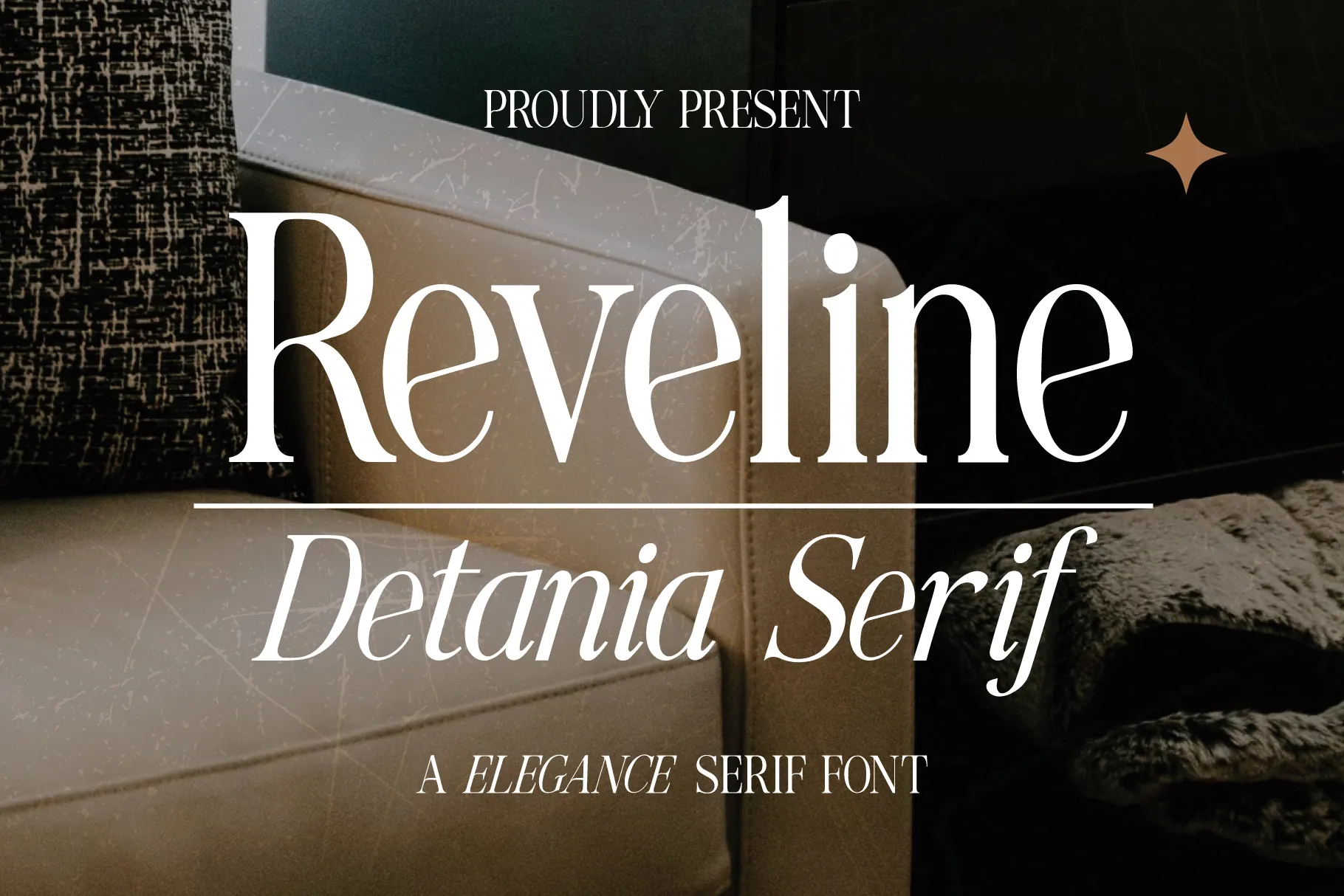
A beautifully crafted serif font that merges traditional elegance with contemporary style, creating a polished and sophisticated feel. Perfect for magazines and studio projects.
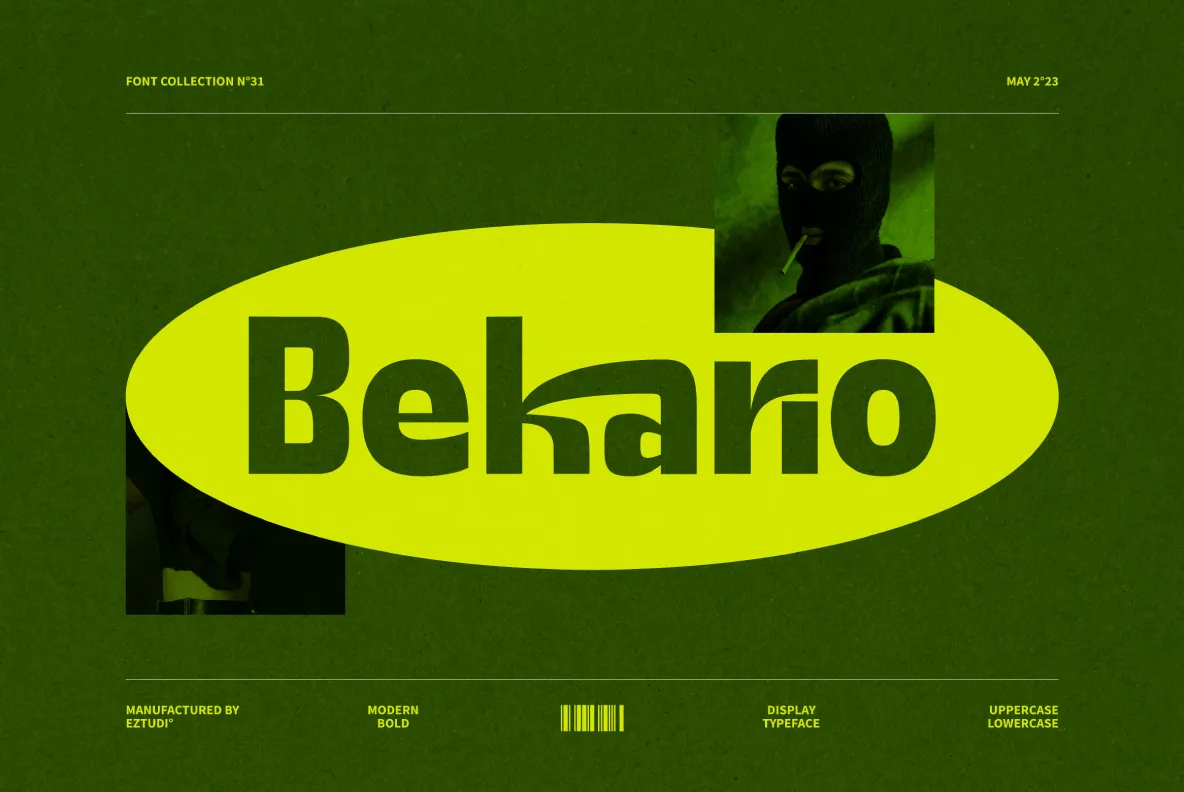
Ez-Bekario Sans Modern Display is a sleek, contemporary font that adds a stylish touch. Its clean lines create an elegant look, perfect for fashion brands and café mobile designs.
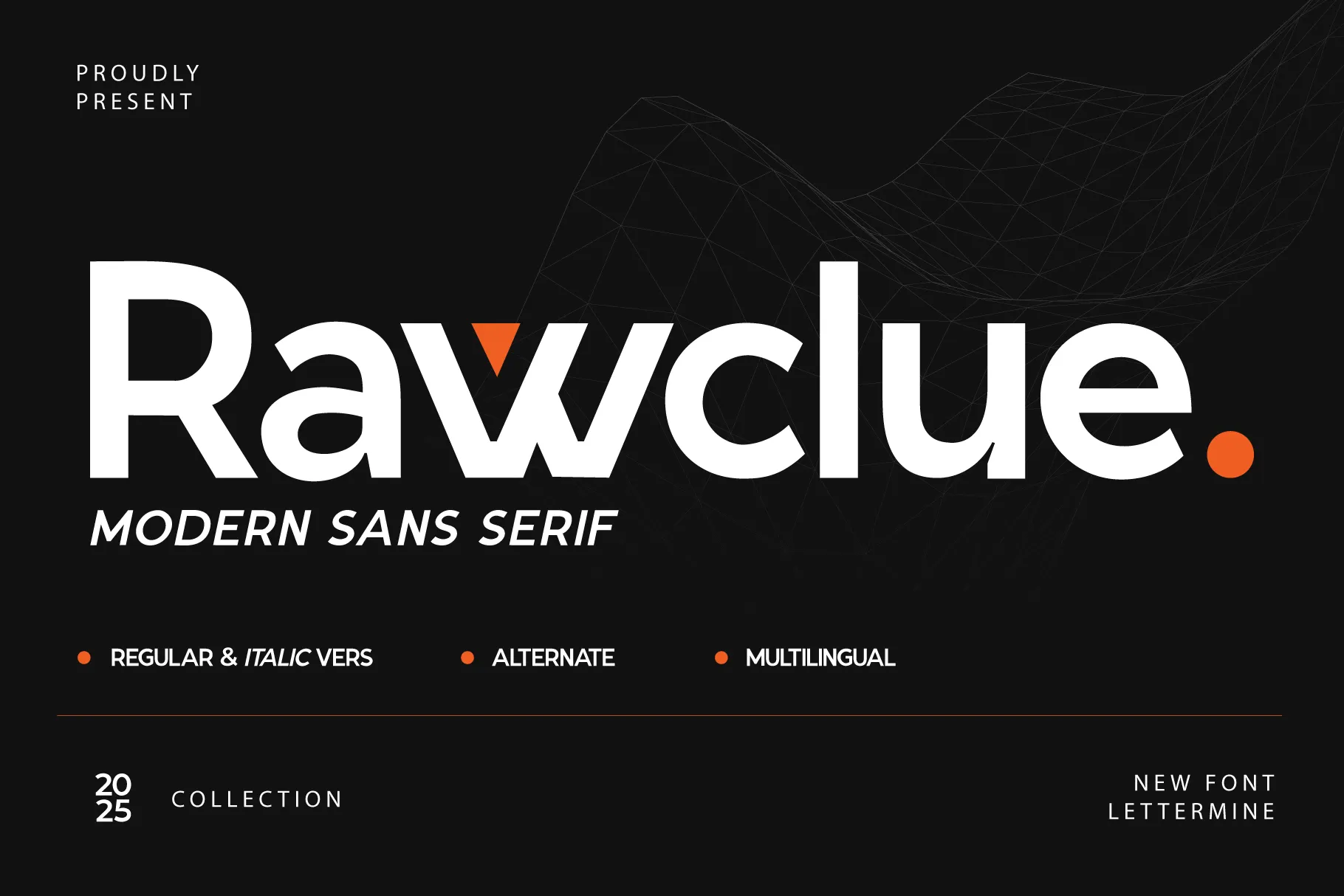
Rawclue combines contemporary style with clean, balanced letterforms to create a clear and impactful look. As one of the recommended fonts for websites, it’s perfect for any professional website seeking a modern touch.
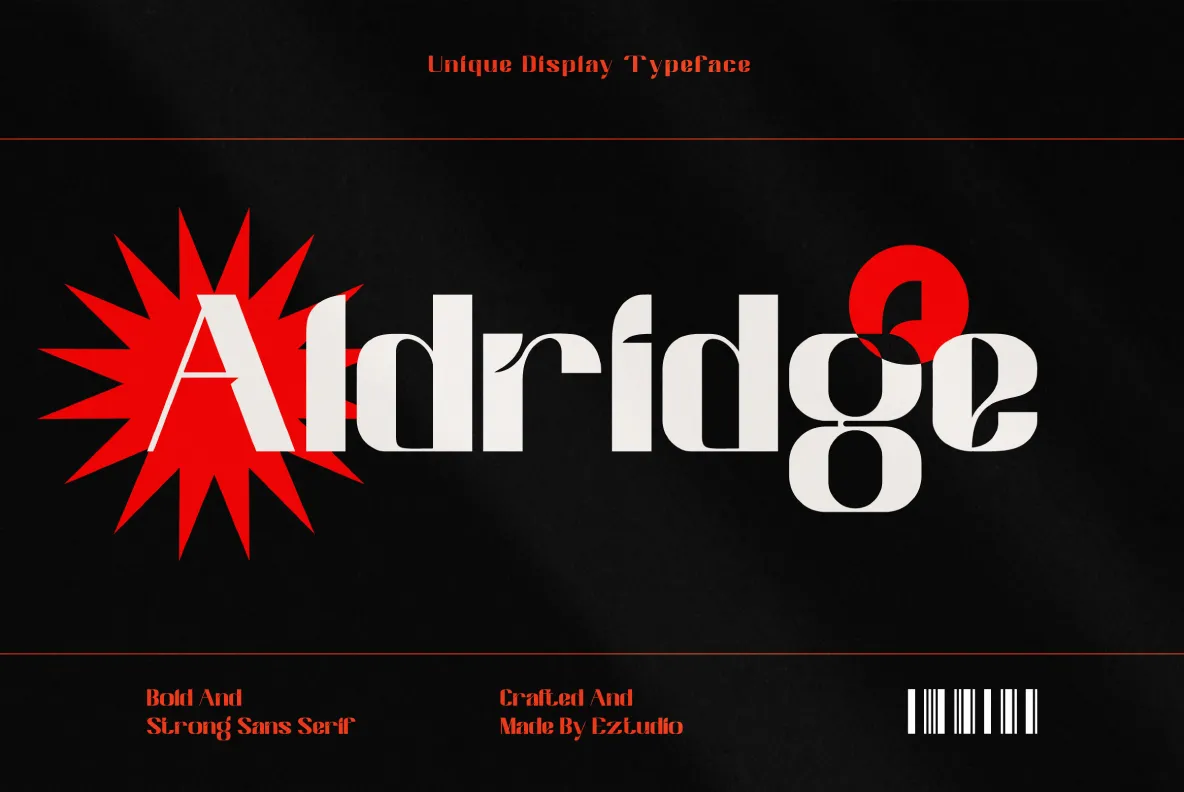
With sportswear brands increasingly using mobile apps for convenience, Aldridge offers a bold, modern display that conveys a strong, energetic vibe.
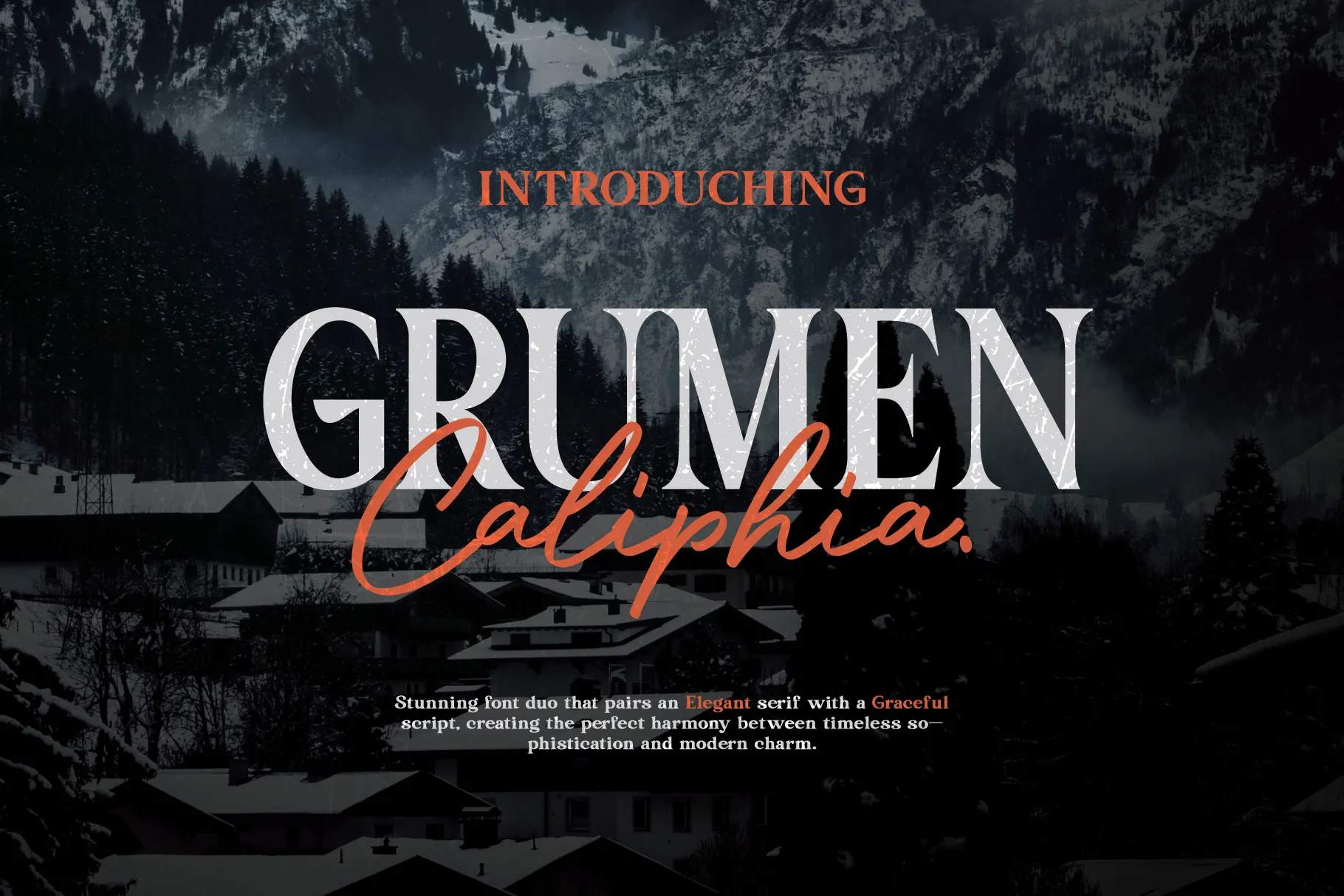
Perfect for apparel online catalogs and the lifestyle industry, Grumen Caliphia pairs a refined serif with an elegant script to create a harmonious and classic elegance look.
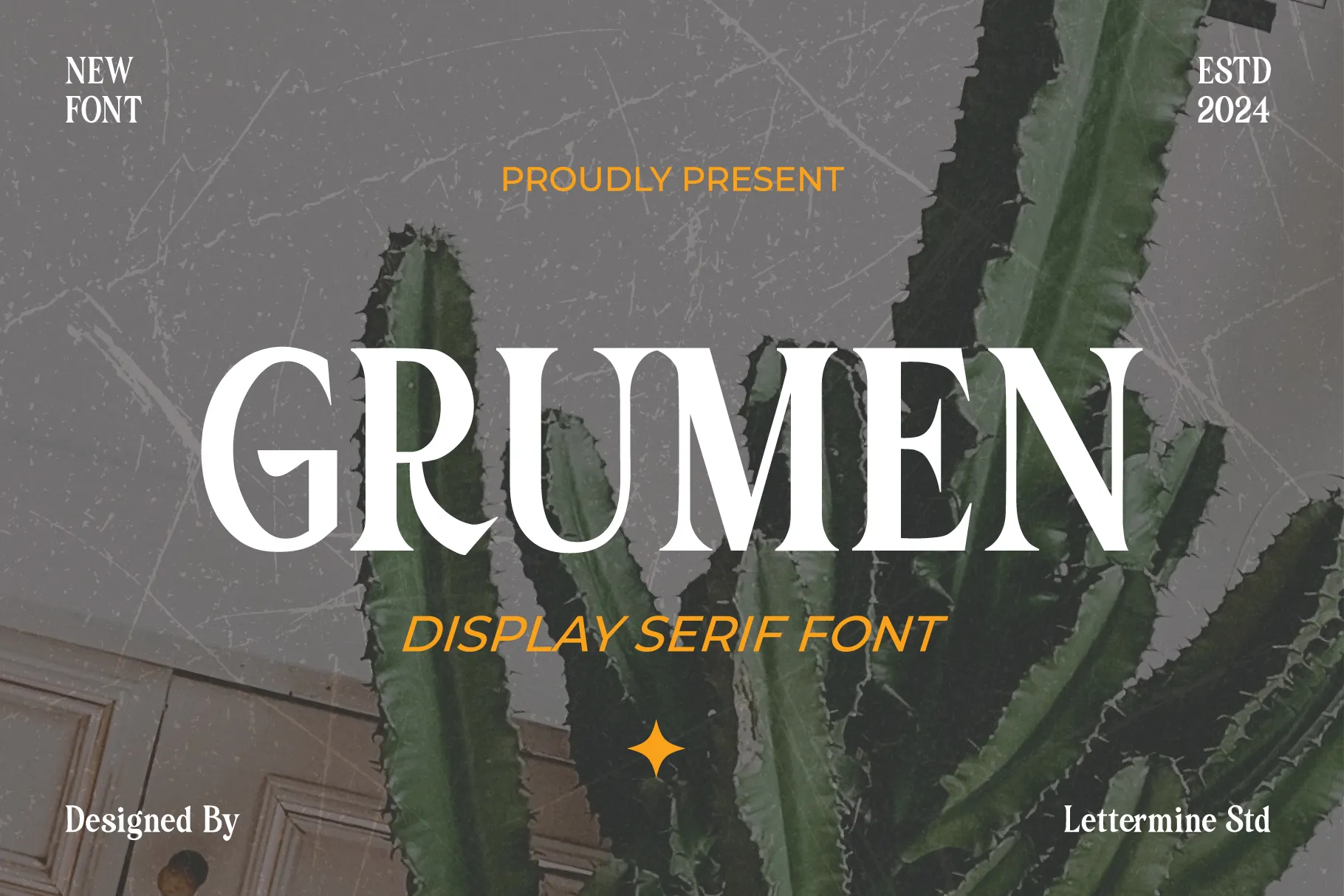
Gurmen delivers a refined, timeless look that works beautifully across apparel, interior, and both mobile and web design projects, especially when paired with the recommended font size for mobile websites.
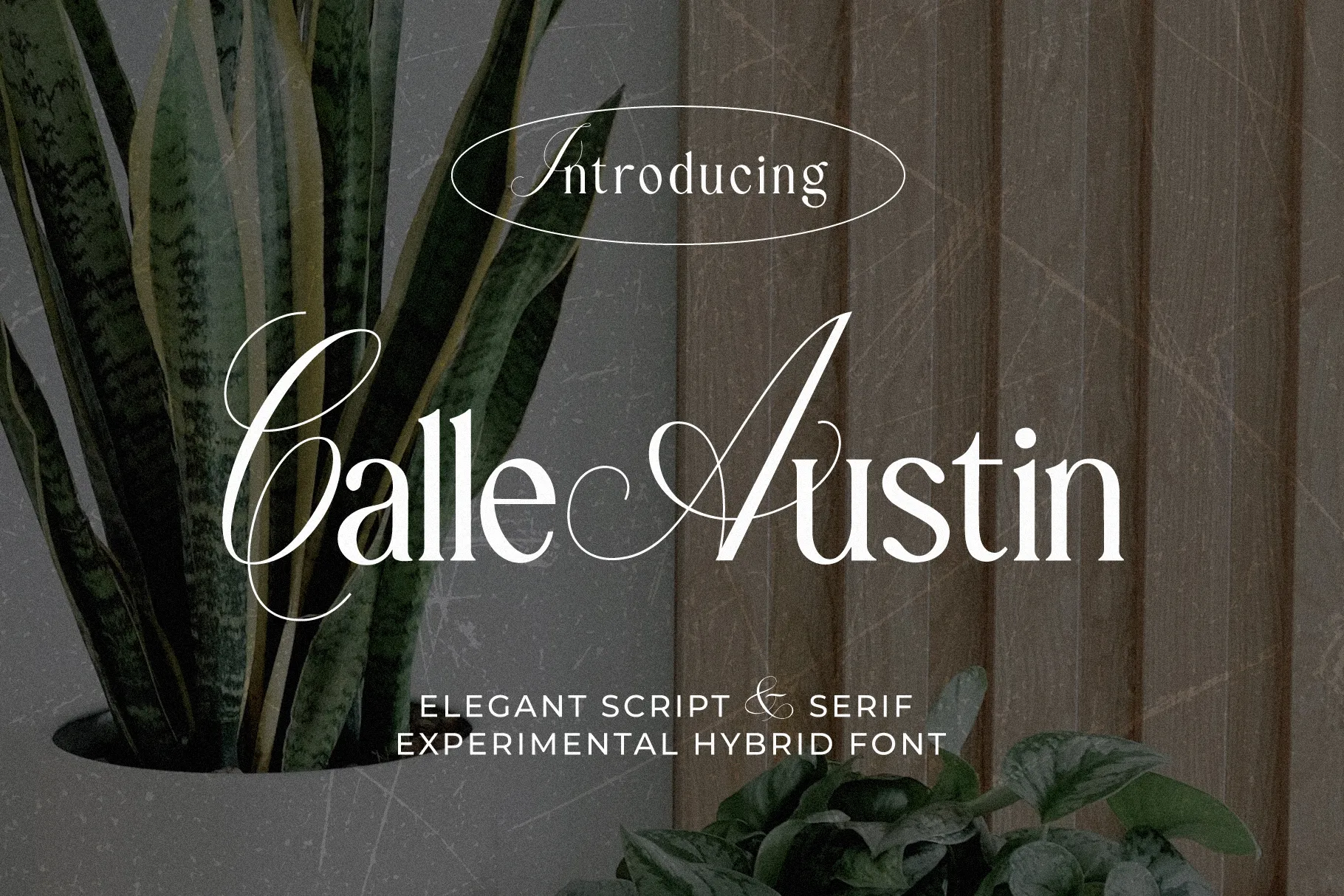
Calle Austin combines elegant uppercase script with refined lowercase serif details, creating a unique visual identity, especially for luxury web design.
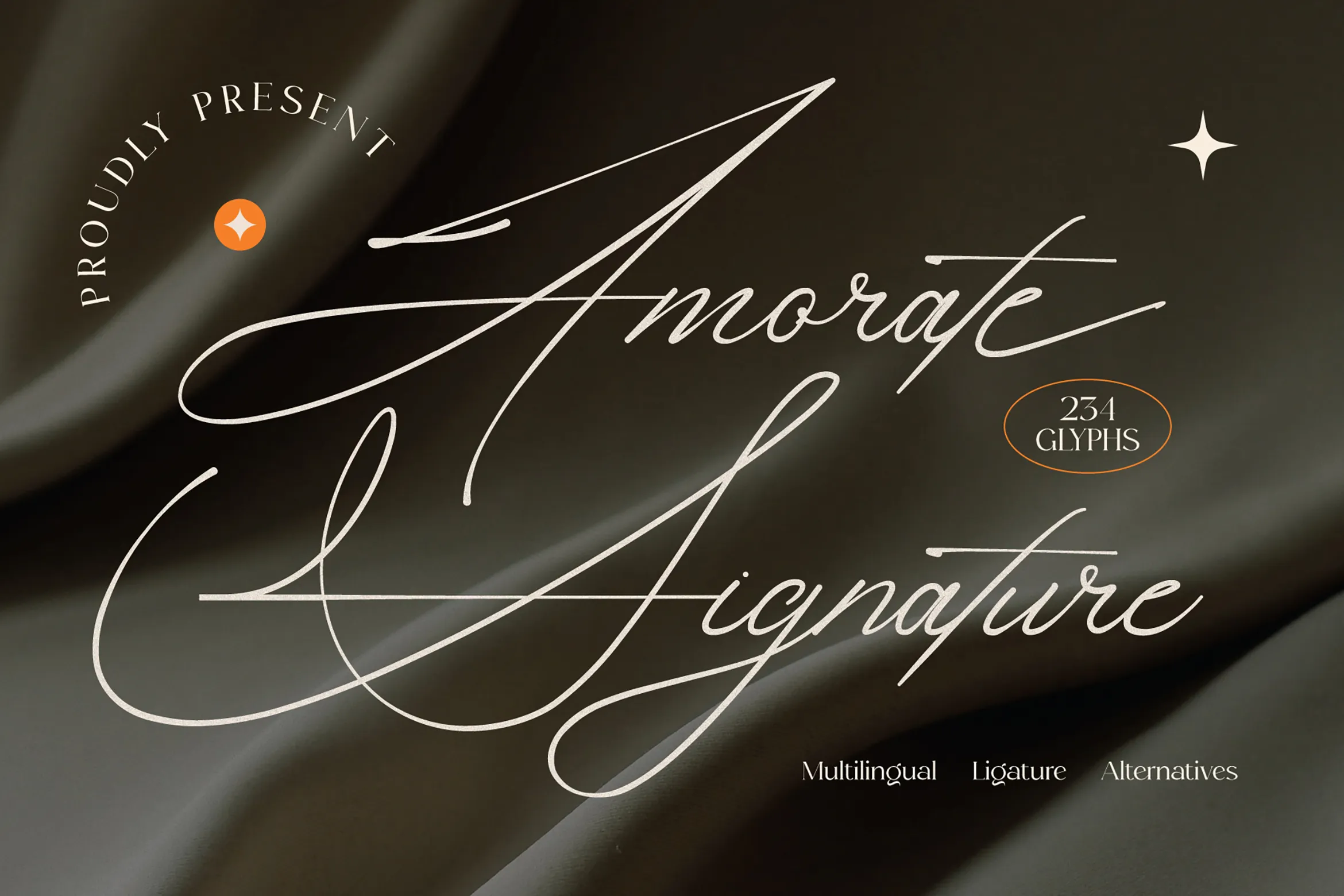
Amorate features a refined signature-style script with graceful flowing strokes and elegant handwritten touches. Its delicate appearance creates a romantic feel that suits bridal websites beautifully.
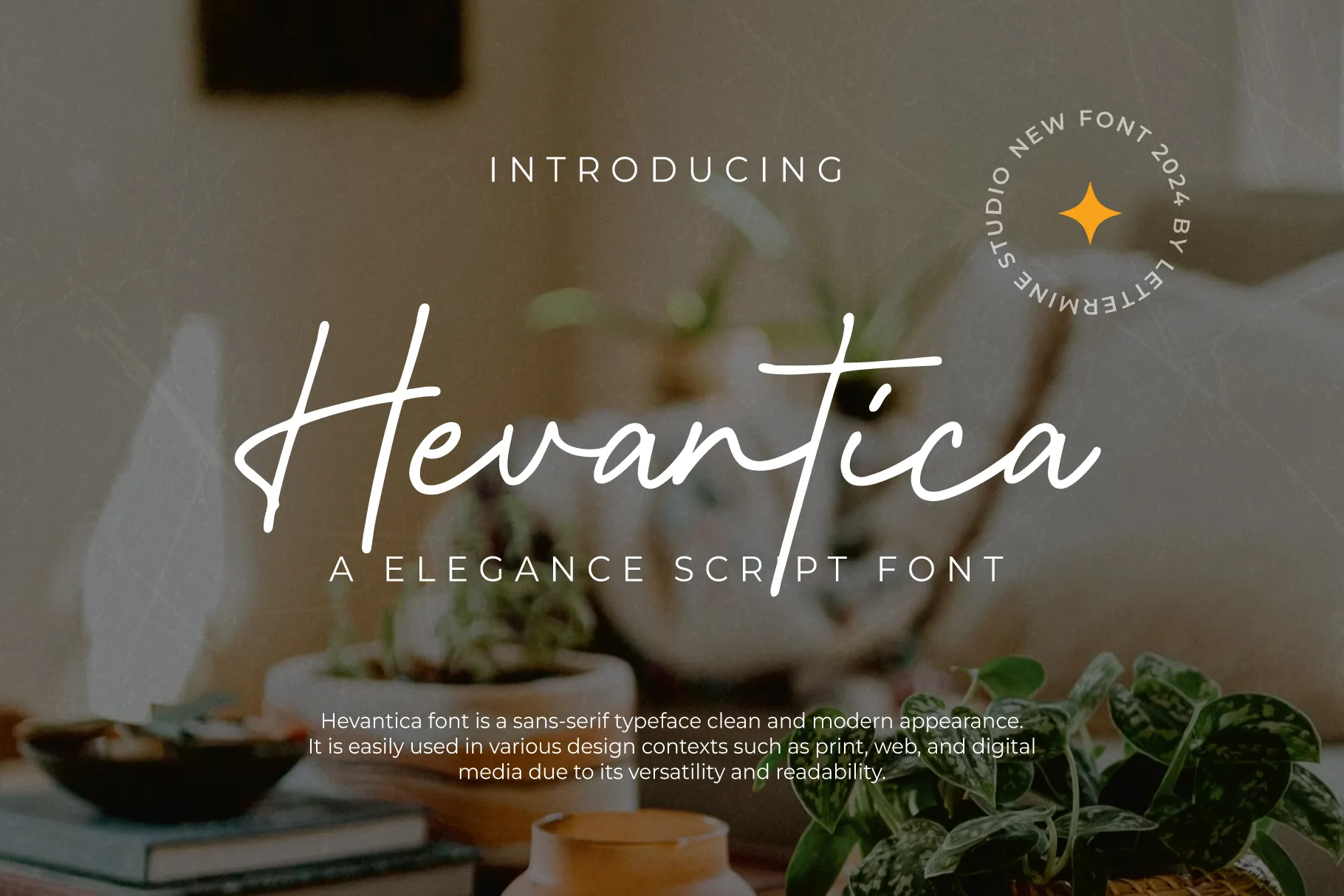
Crafted with finesse and sophistication, it embodies typography elegance. Designed to bring a refined class, it’s perfect for coffee, spa, or hair salon mobile apps.
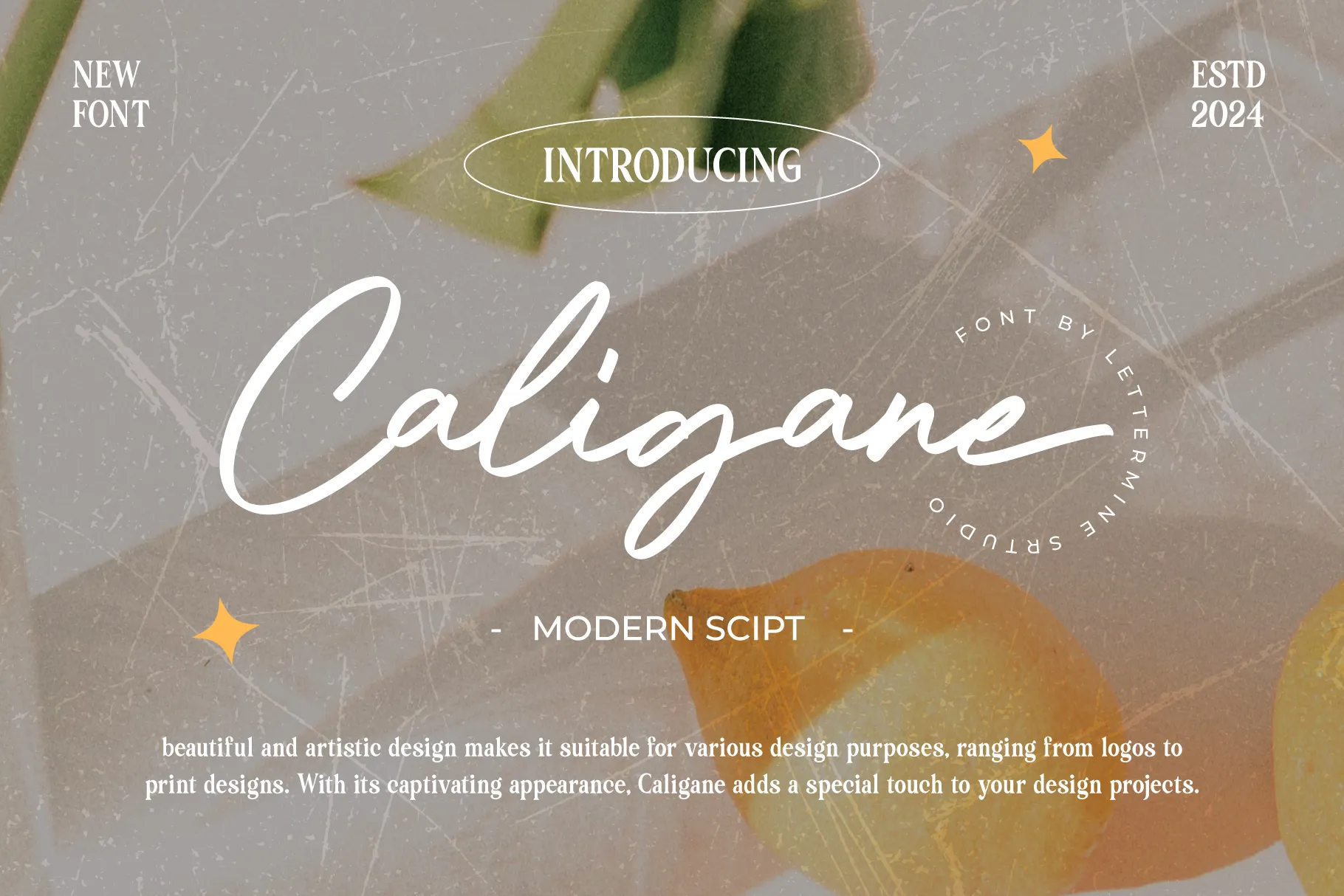
This font showcases sleek lines and flowing curves that create a refined, elegant look. It blends modern aesthetics with timeless charm for merch or an invitation website.
As one of the recommended fonts for websites, it’s perfect for F&B industry designs thanks to its refined craftsmanship with a charming, sophisticated style.
A sophisticated organic serif font with a captivating charm. Carefully crafted, it pairs beautifully with projects in the beauty and interior industries that seek a graceful look.
A luxury serif font, Gradine combines high-contrast strokes with elegant curves. Radiating a sense of exclusivity, it is perfectly suited for portfolio websites.
A modern, elegant serif font that merges tradition and innovation. It conveys exclusivity and professionalism, which is great for media-industry websites.
If you’re still considering what fonts are recommended for website design, Belitha might be the answer. Its graceful, flowing strokes create an elegant and warm feel, perfect for beauty and fashion projects.
Avalline features a fluid handwritten design with soft, natural textures and graceful strokes. This combination gives bakery mobile app interfaces a warm, elegant, and approachable appearance.
A modern script font with a captivating and elegant style. Its timeless style makes it a perfect companion for a wide range of industries.
This font’s elegant, flowing style brings a natural and expressive touch, ideal for building personalized branding that embraces an artistic feel.
Ez-Sanjaya delivers a modern and striking style through its bold strokes and clean lines. Included among the recommended fonts for websites, it’s perfect for jewelry collections across digital platforms.
Regista blends bold serifs with clean lines to create a refined and modern display style. Perfect for photography and interior websites, it also stands out among the best fonts for startup web application 2026.
In the end, great typography helps turn a good website into a great one. The fonts you choose influence how users feel, read, and interact with your content. By selecting the right style, you can create a seamless and enjoyable experience for your audience.